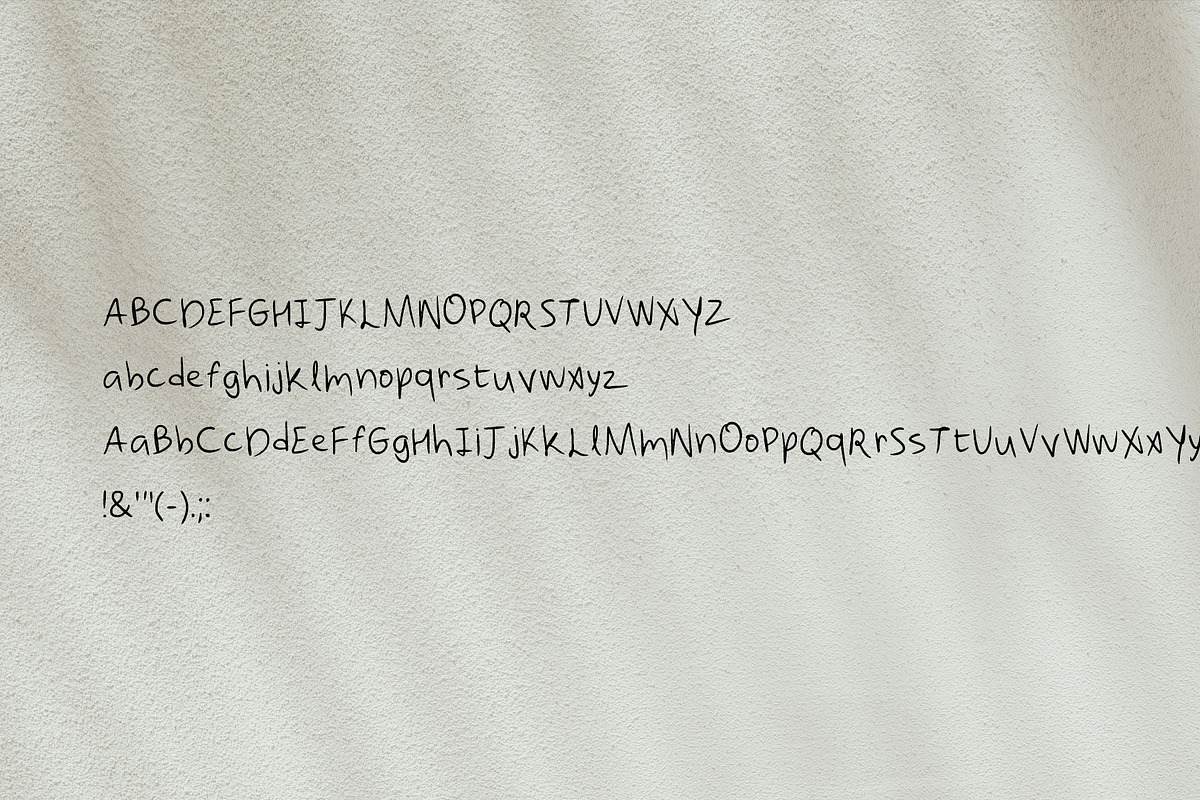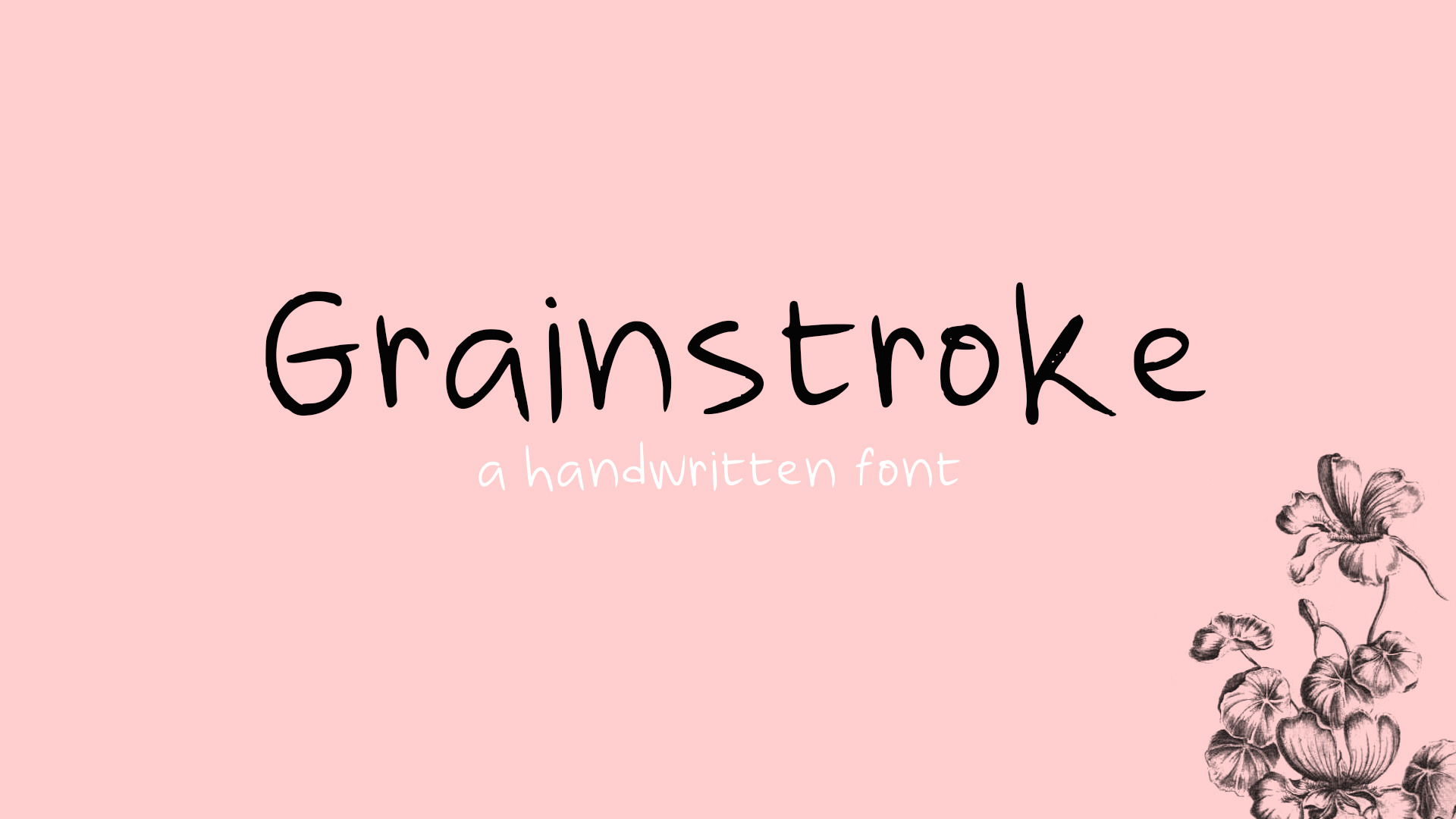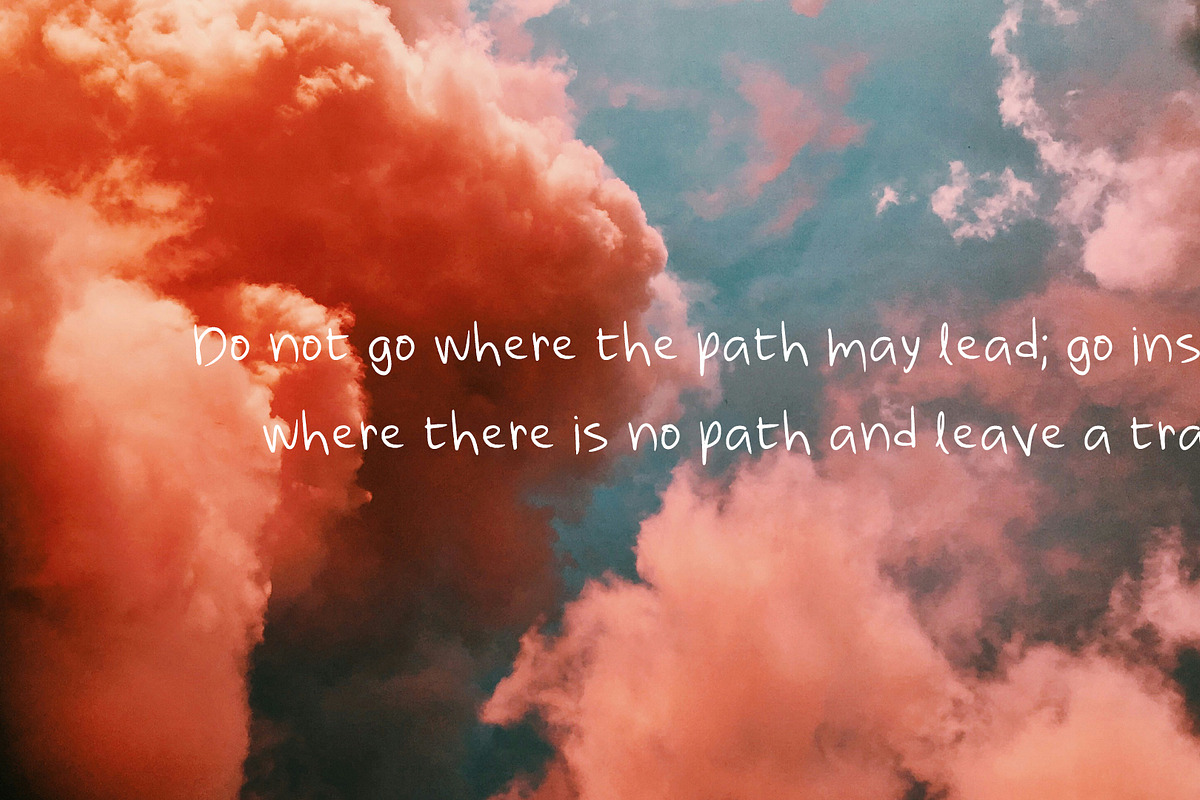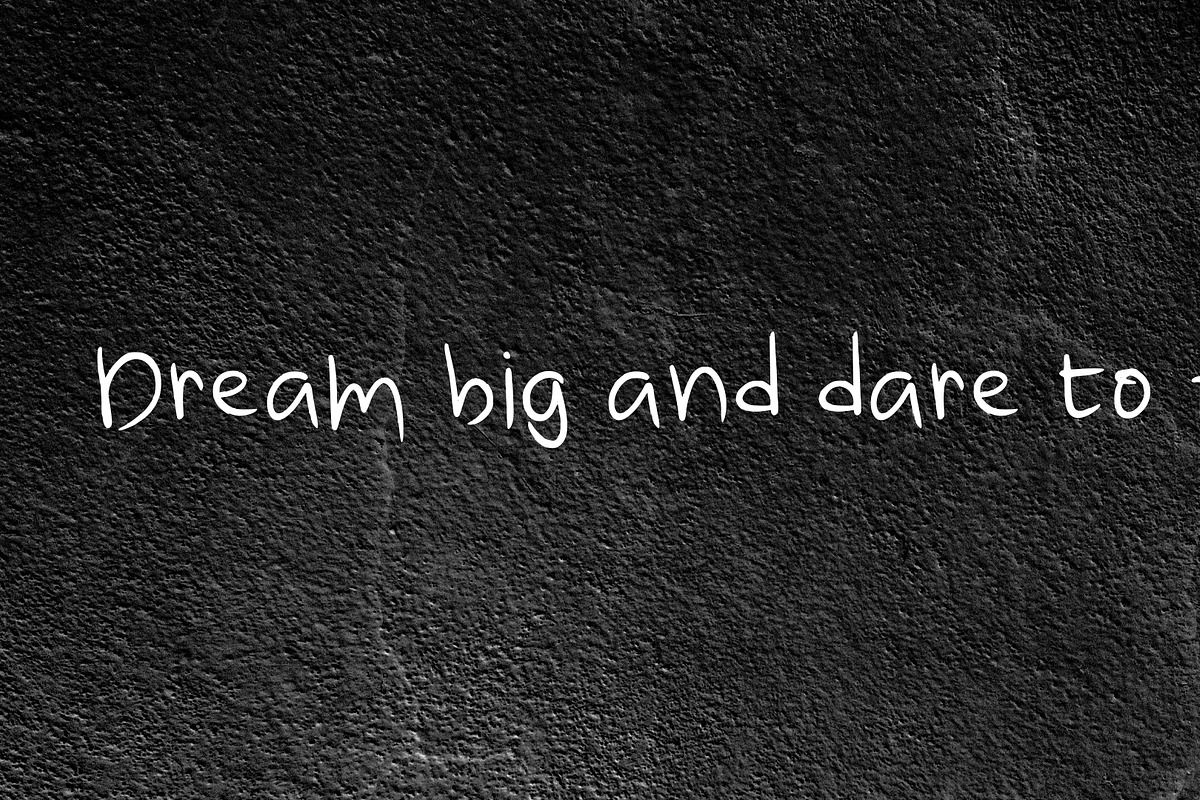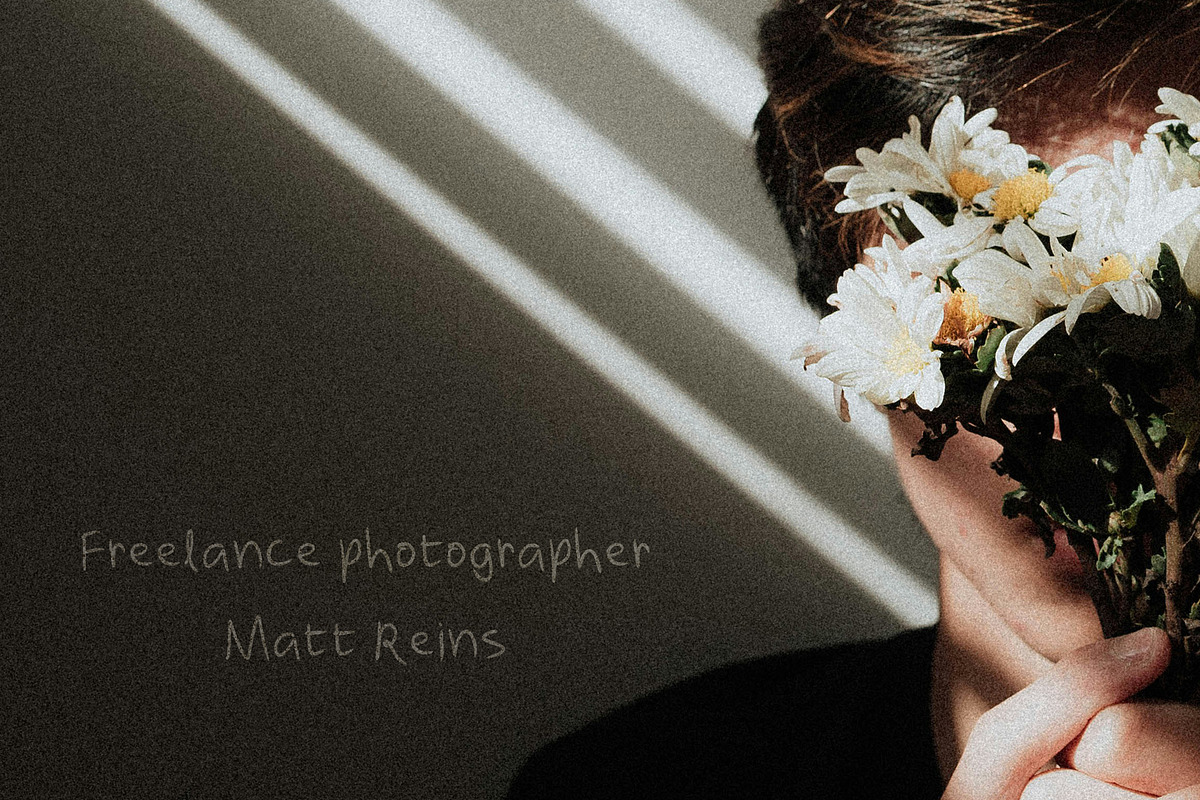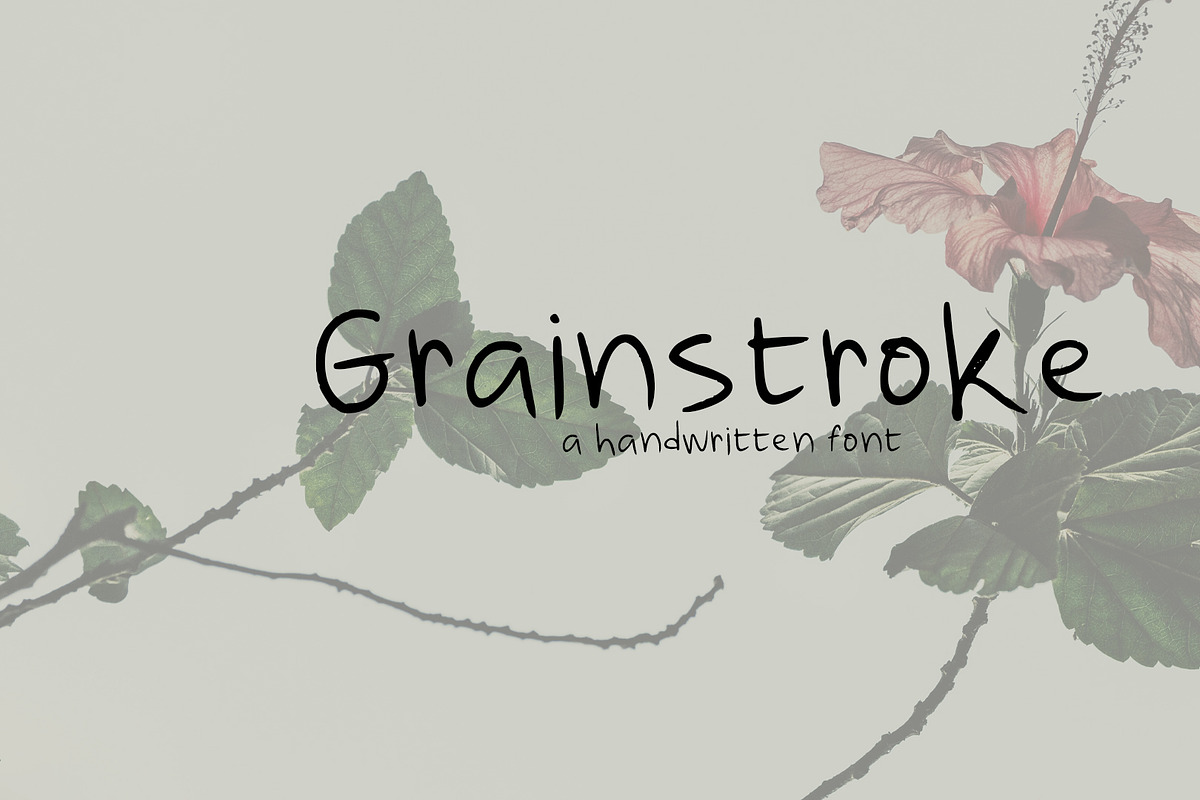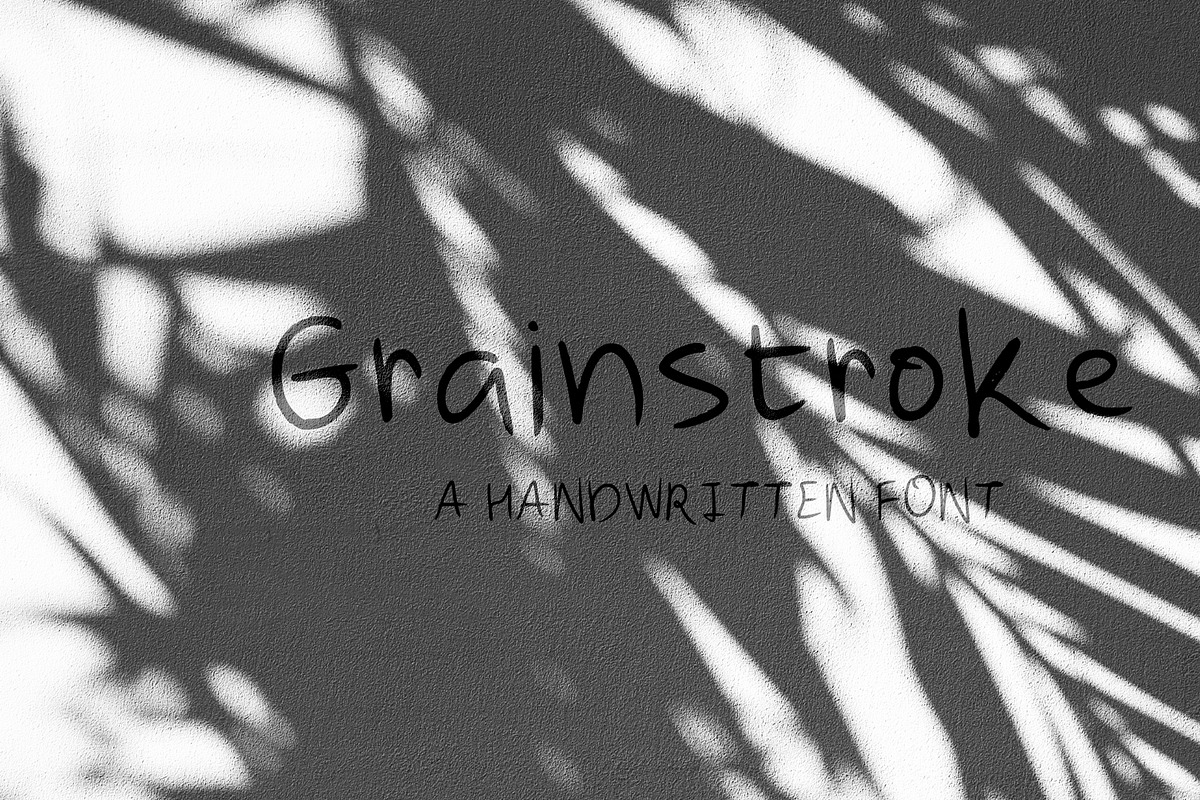
Grainstroke Handwritten Font
Grainstroke Regular is a captivating handwritten font that radiates natural, authentic charm. With fluid yet deliberate strokes and subtle imperfections, it beautifully captures the nuances of hand-drawn lettering. Perfect for adding a bespoke touch to casual and professional design projects, this font blends an organic warmth with a polished aesthetic.
Complete set of uppercase and lowercase letters. Includes numbers and essential punctuation marks. Smooth kerning and balanced spacing for a cohesive look. Versatile design suitable for headlines, body text, and decorative elements. Perfect For: